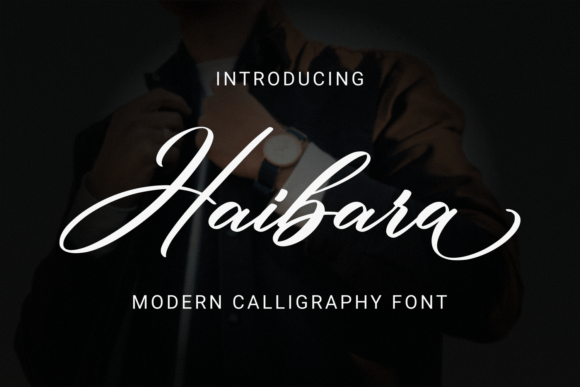
Say goodbye to monotonous fonts and embrace the allure of Haibara, an extraordinary creation by kammaqsum. This meticulously crafted script font family is a symphony of elegance and creativity, designed to captivate and inspire. Immerse yourself in the delicate curves and graceful lines that effortlessly flow together, creating a visual masterpiece that will elevate your designs to new heights.
With its inherent charm and sophistication, Haibara is the perfect choice for expressing your individuality. Whether you're a graphic designer seeking to leave a lasting impression, a creative entrepreneur eager to make a statement, or simply someone who appreciates the beauty of intricate typography, this font collection will ignite your imagination and redefine your artistic possibilities.
Unleash the beauty of Haibara's limitless applications. Enchant your logos with a touch of exclusivity, add a dash of charm to your product labels, and infuse your branding with a timeless appeal. Create captivating invitations that hint at a story yet to be told, design websites that exude elegance, and transform your quotes into works of art. Haibara will effortlessly elevate your creations and make them shine with an aura of sophistication.
Haibara is more than just a font; it's an experience. Immerse yourself in its enchanting world and discover a treasure trove of creative possibilities. Whether you're crafting a heartfelt message, designing a stunning logo, or simply exploring your artistic side, Haibara will be your trusted companion, guiding you towards visual excellence.